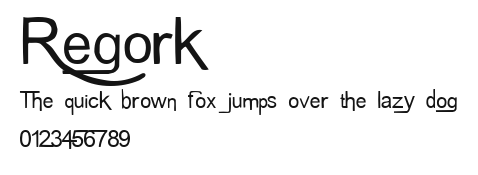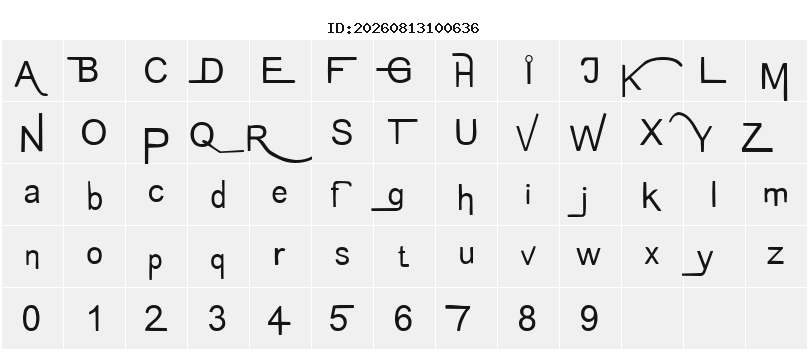
Regork Preview
• Font Name: Regork
• Full Font Name: Regork
About Regork.ttf
Regork.ttf is a modern, elegant sans-serif font designed for ultimate readability and visual harmony. Perfect for branding, headlines, web design, and print materials.